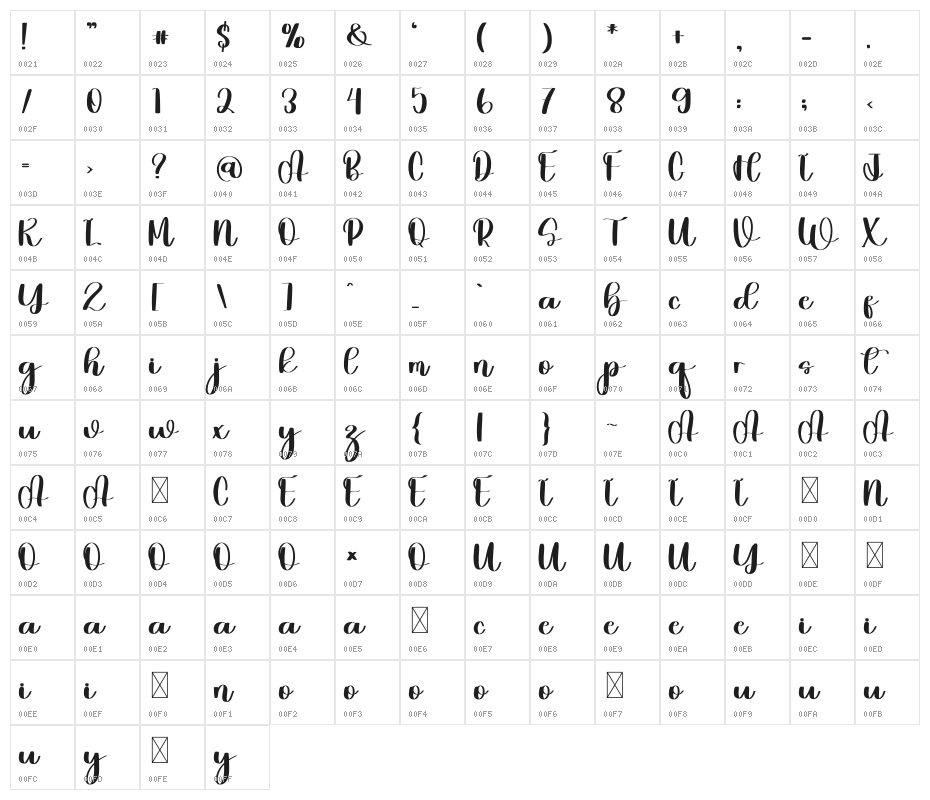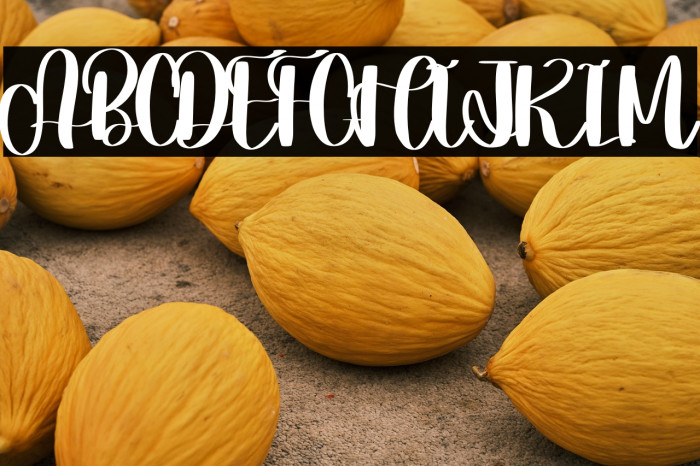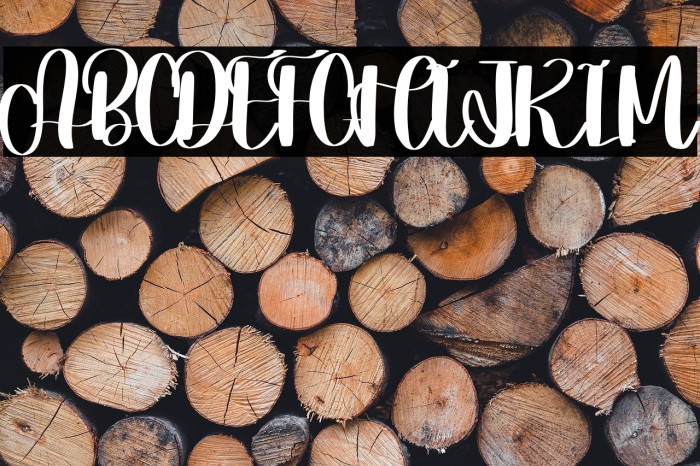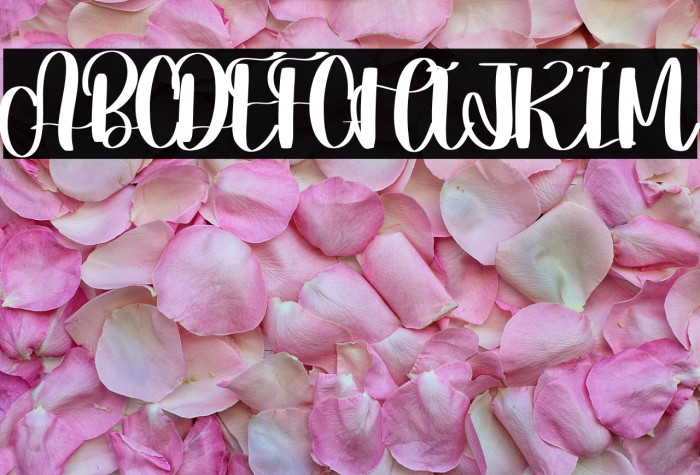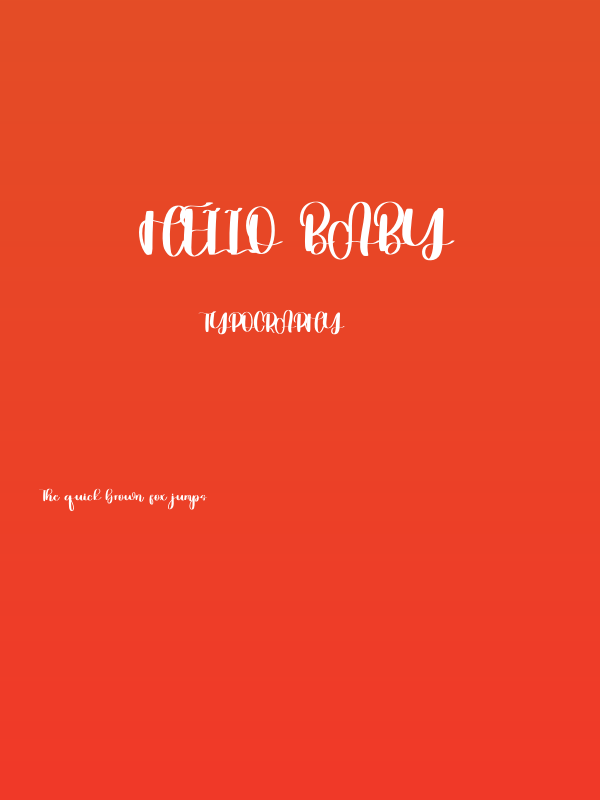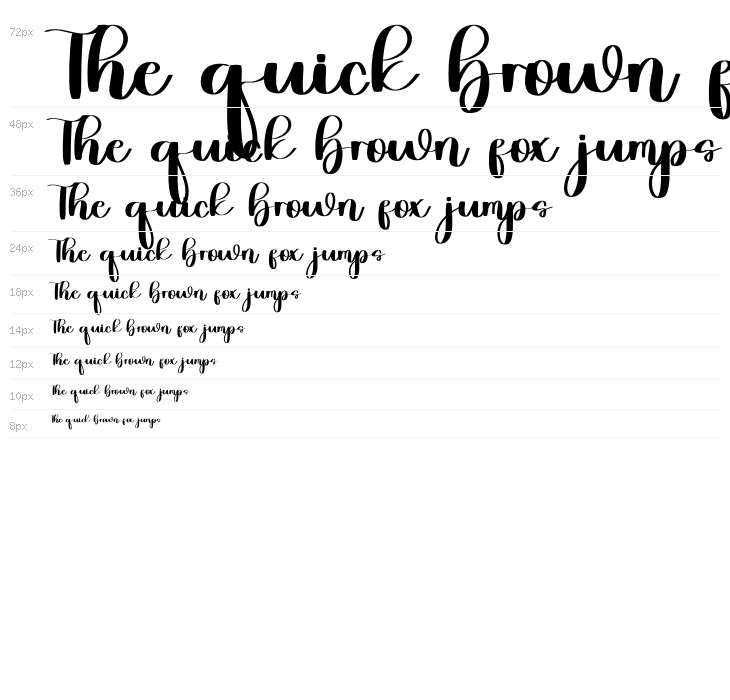
Hello Baby Font
Hello Baby Description
This font features a playful and elegant script style with a handwritten touch. The characters are connected with smooth, flowing lines, giving it a lively and dynamic appearance. The uppercase letters are bold and prominent, while the lowercase letters maintain a consistent flow, enhancing readability. The numbers and special characters are designed to match the overall aesthetic, making them suitable for various decorative purposes. The font's whimsical nature makes it ideal for creative projects that require a personal and friendly touch.
| Use Case | Logos, Headlines, Invitations |
| Proposed Projects | Ideal for wedding invitations, greeting cards, branding, and social media graphics. |